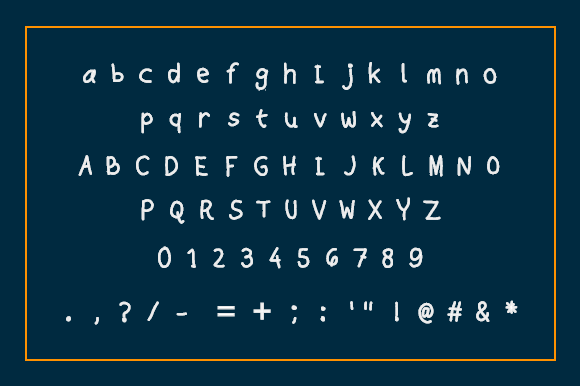
Poco Poco Font – Free Download
Introduction to Poco Poco Font
Poco Poco is a quirky handwritten font.
This sweet font will turn any idea into a true standout Get creative with its childlike playfulness, and use it to lighten up any kids and school project.
Key Features of Poco Poco Font
Why Choose Poco Poco Font?